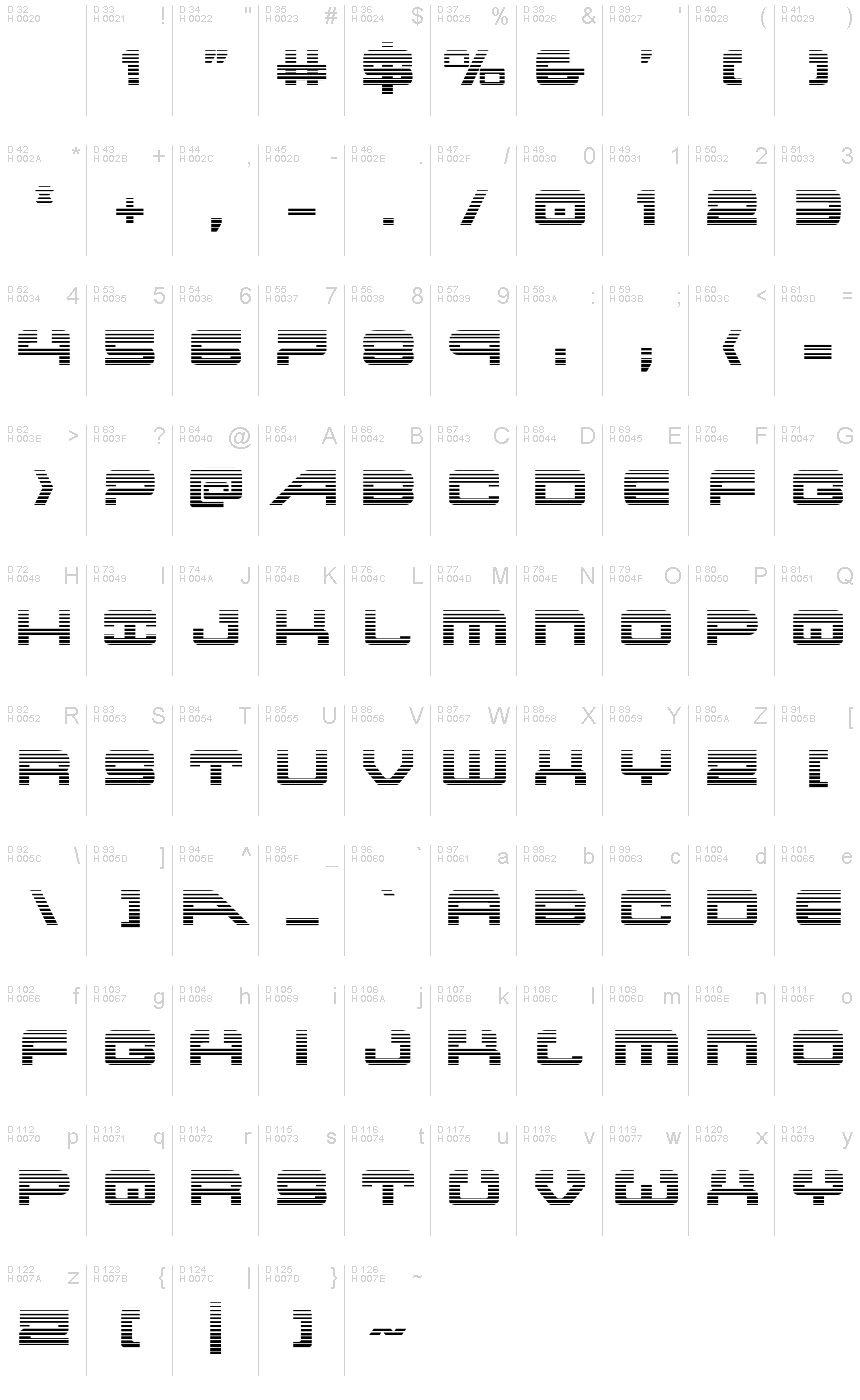
Atlantia Gradient
Atlantia Gradient captivates with its bold design and futuristic flair. The expanded letters create a sense of space and movement, inviting viewers into a modern realm. Each character is adorned with striking gradients that enhance its visual drama, making it a standout choice for dynamic branding or eye-catching headlines.
This font’s unique aesthetic lends itself beautifully to creative projects such as technology-focused websites, sci-fi media, and vibrant promotional materials. Its strong presence ensures that messages are not only delivered but celebrated, making Atlantia Gradient perfect for designers seeking to convey innovation and excitement in their work. With its arresting style and versatility, this font stands ready to transform any visual landscape into something extraordinary.